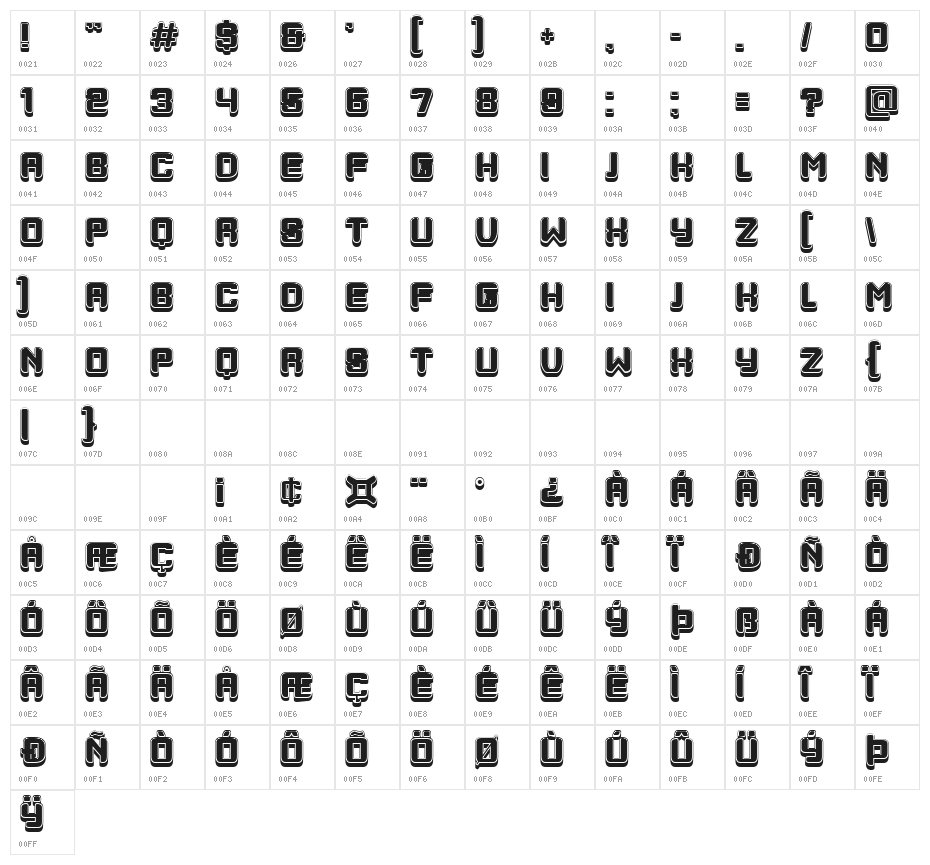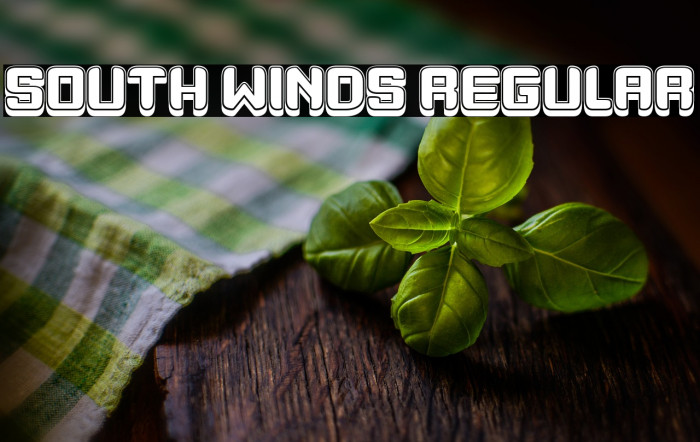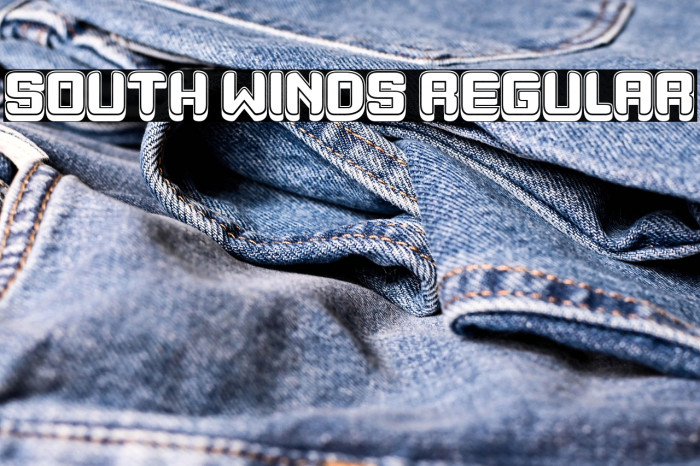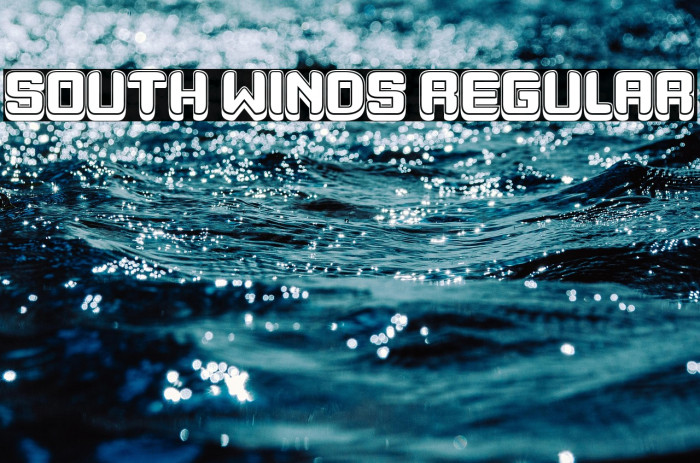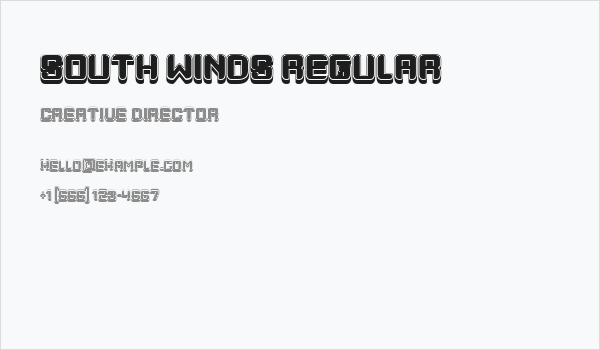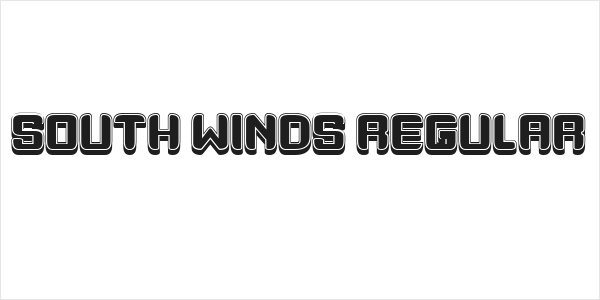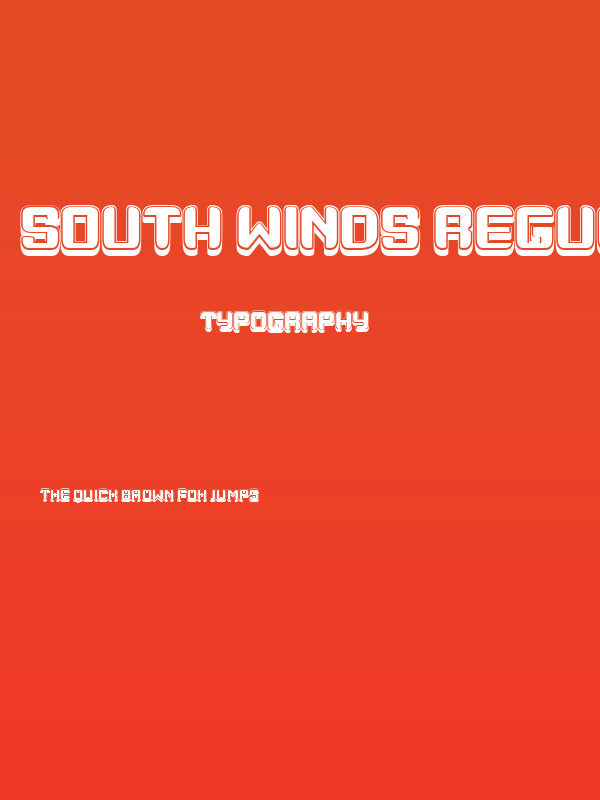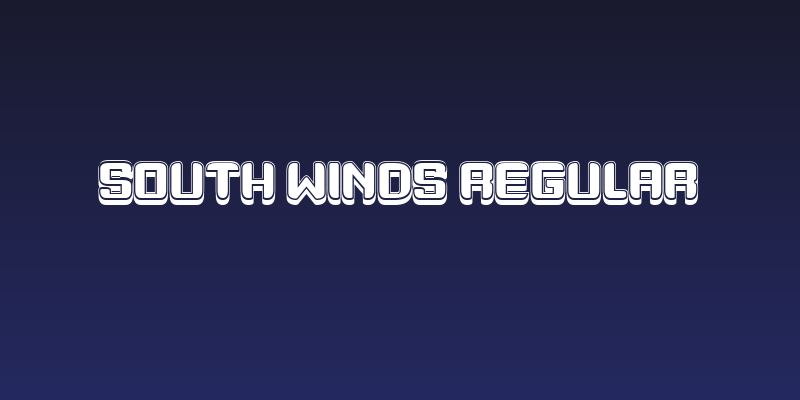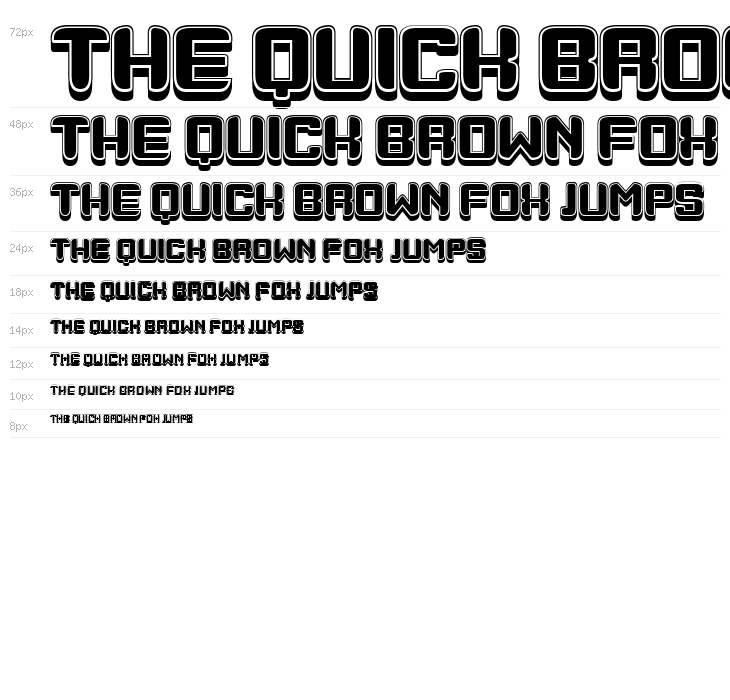
South Winds Regular Font
South Winds Regular Description
This font features a bold and modern design with a strong outline that gives each character a three-dimensional effect. The uppercase letters are uniformly styled with rounded edges, creating a sense of cohesion and unity. The numbers and special characters maintain the same boldness and outline, ensuring consistency across all elements. The font's style is eye-catching and suitable for projects that require a strong visual impact.
| Proposed Projects | Ideal for posters, headlines, logos, and any design requiring a bold statement. |